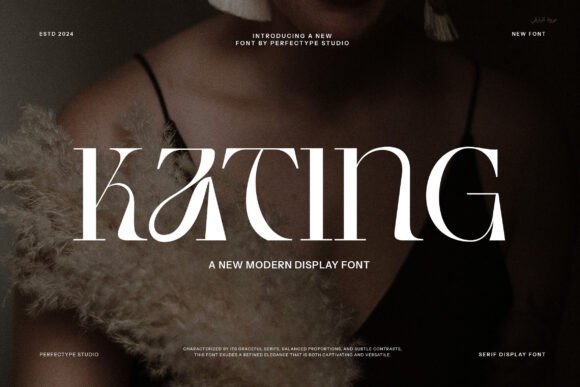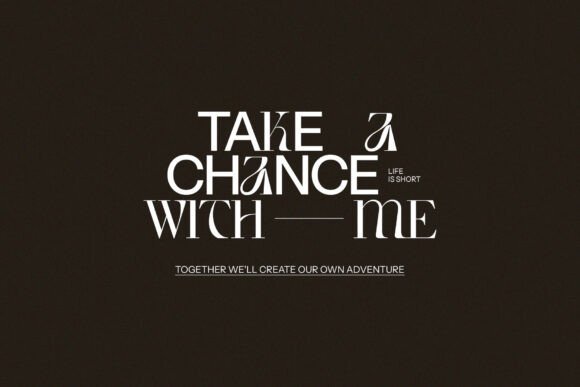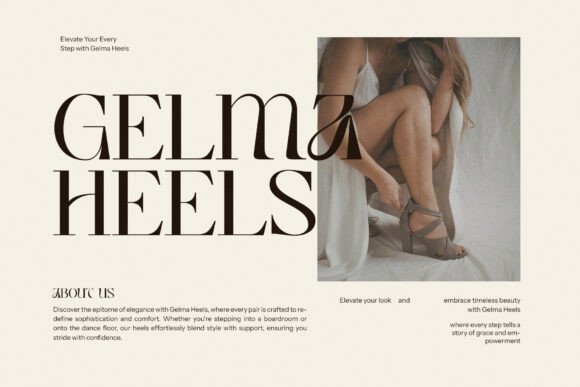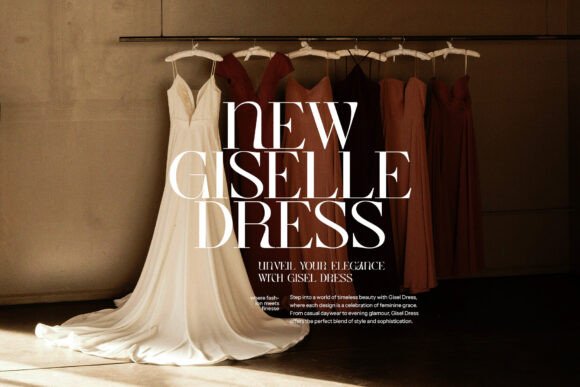
Kating Font: Elegant Serif Typography for Modern Logo Design
About the Kating Font
Meet Kating Font, a stunning font that brings a touch of elegance and professionalism to any design. Kating an Elegant Serif is a stylish font that combines classic charm with modern elegance. Its soft curves and sharp edges give it a refined look, making it perfect for invitations, headlines, or any design that needs a touch of sophistication. This font stands out while remaining easy to read, adding beauty to any project.
Kating excels in headlines, short text blocks, and branding applications where a touch of classic sophistication is desired. Its elegant form works particularly well for luxury goods packaging, invitations, and logos. However, its refined serifs make it less suitable for body text or UI elements requiring high readability at smaller sizes. Extended use in long paragraphs would likely lead to reader fatigue.
Pairing Kating with a clean sans-serif like Lato or Open Sans provides a strong contrast, allowing Kating’s elegance to shine. For a more playful yet refined feel, consider pairing it with a script font like Great Vibes for accents, maintaining a sense of sophistication. Avoid pairing it with overly bold or geometric sans-serifs, as this could clash with its delicate curves.
Kating possesses a personality best described as elegant and refined, with a subtle hint of modern flair. Its overall mood is sophisticated and approachable, making it ideal for brands aiming for a premium yet friendly image.
Kating Font Usage Examples
Kating Font Example